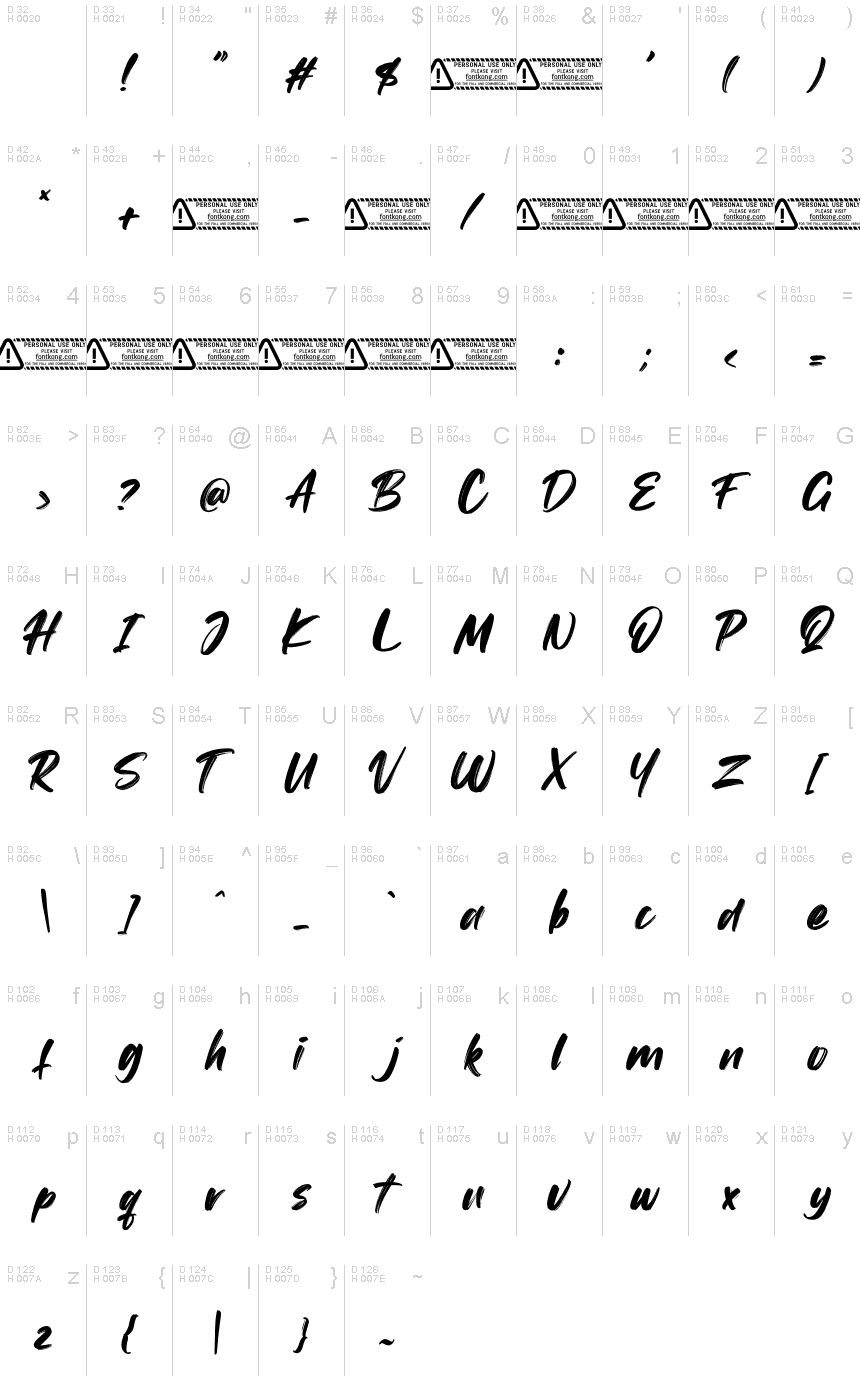
RASKA
Raska, designed by Kong Font, is a captivating rough brush font that adds a touch of edginess to any project. With its semi-bold weight, this font exudes confidence and personality. Its rugged brush strokes create an authentic and organic feel, making it suitable for a wide range of projects.
Whether you're designing album covers for indie bands or creating bold social media graphics, Raska is the perfect choice to make your content stand out. Its unique style brings a raw energy to posters, logos, and packaging designs alike.
Let Raska unleash your creativity and make a lasting impression.